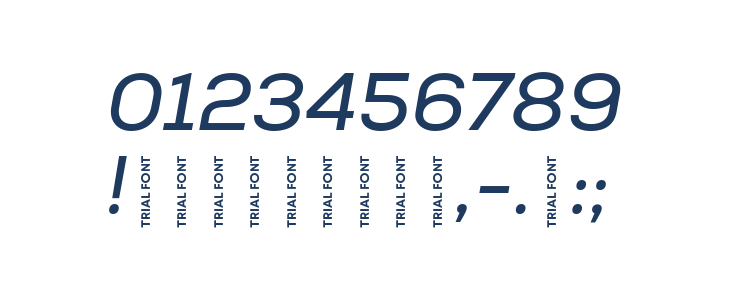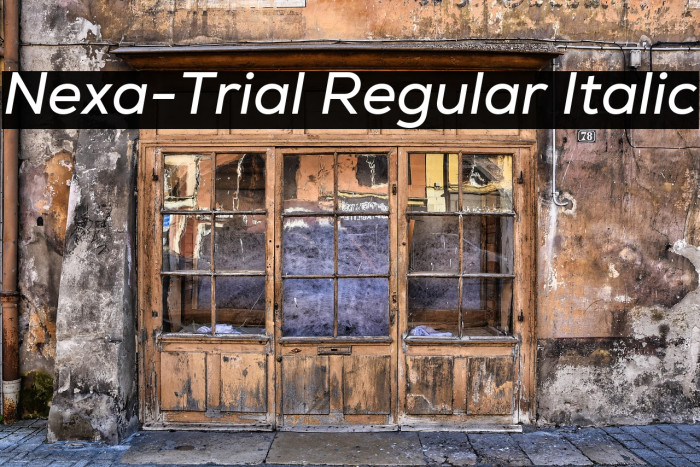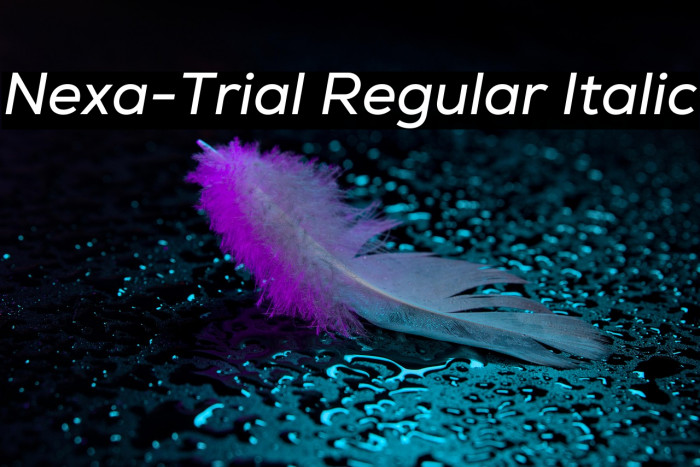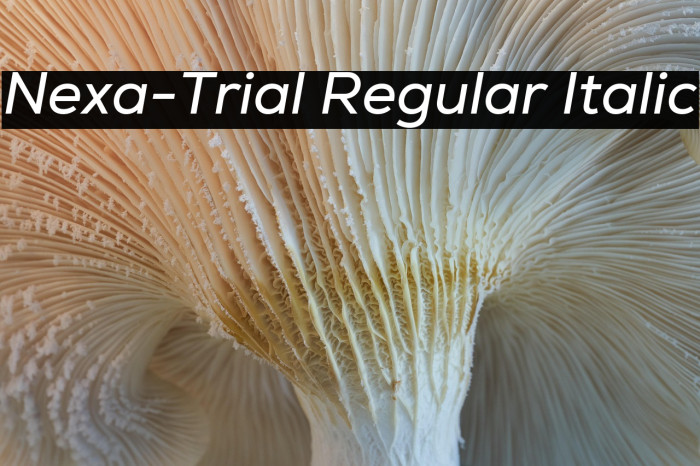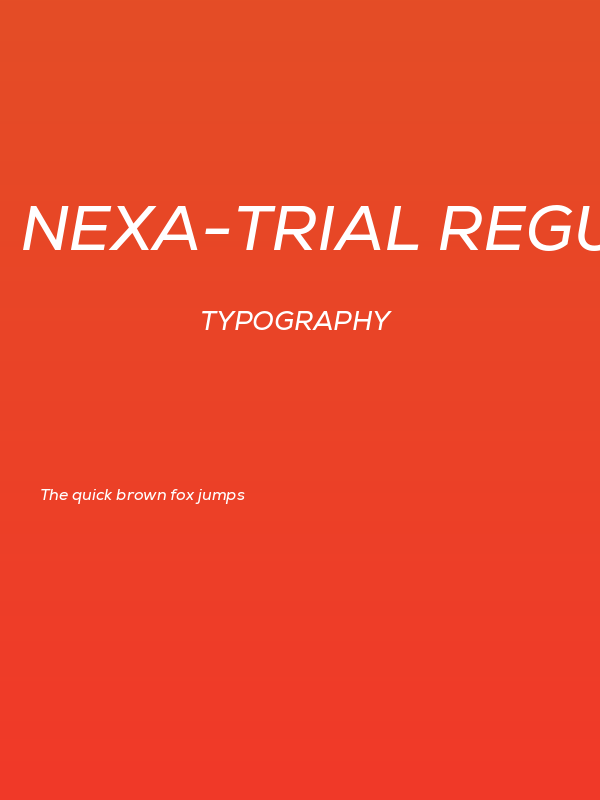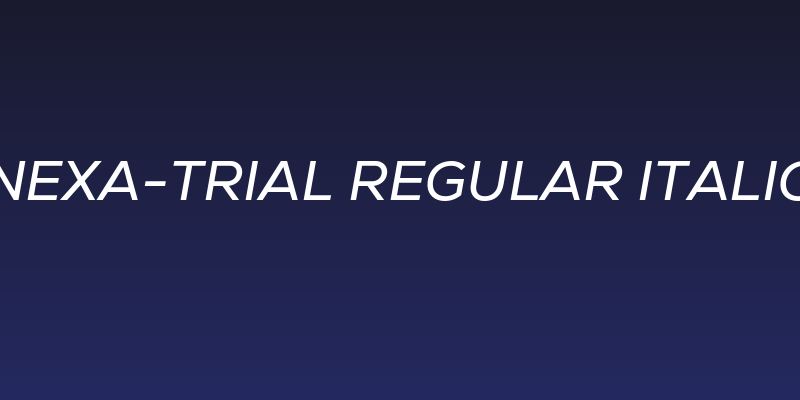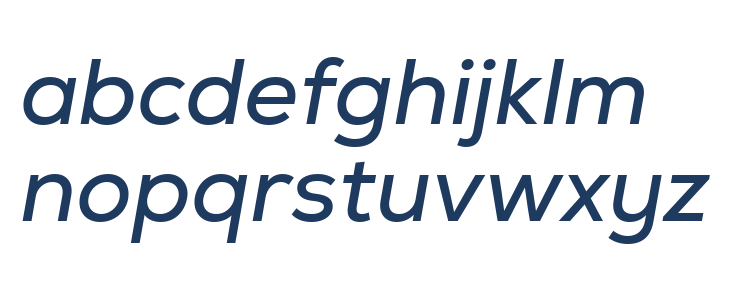
Nexa-Trial Regular Italic Font
Nexa-Trial Regular Italic Description
This font exhibits a clean and modern design with a slight italic slant, giving it a dynamic and forward-moving appearance. The characters are well-proportioned with a consistent stroke width, contributing to its legibility and versatility. The uppercase letters are bold and assertive, while the lowercase letters maintain a friendly and approachable feel. The numerals are clear and distinct, making them suitable for various applications. Special characters are designed with the same attention to detail, ensuring a cohesive look across all glyphs. This font is ideal for projects that require a contemporary and professional aesthetic.